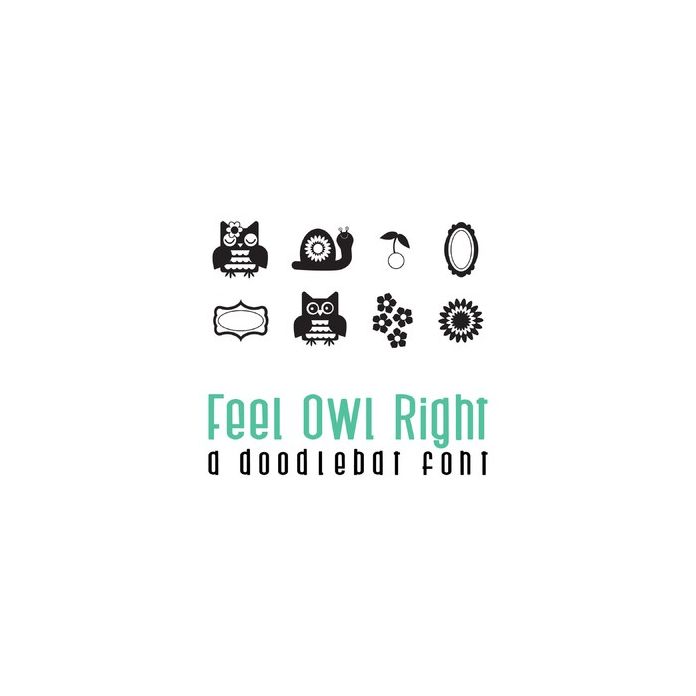
This fun doodlebat font features 26 fun spring and summer imagers of owls, snails, florals and fruit. Perfect for cards, gifts, decor, crafts, scrap book pages, planner stickers and more!